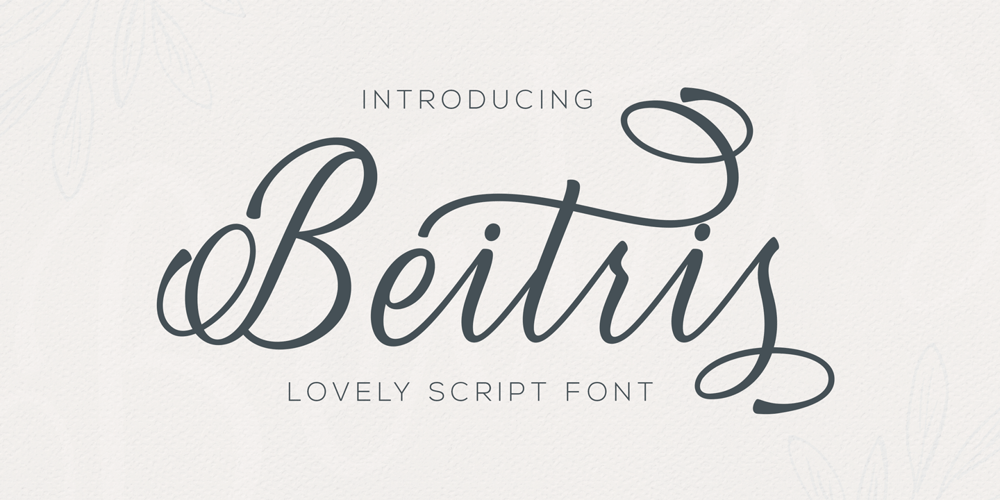
Beitris
Beitris font
Beitris Font Family was designed by Mohd Ghazi Fahrizal and published by Kodhibanks. Beitris contains 1 styles and family package options. Beitris is a beautiful and elegant script font. Perfect for designing branding, blog logo, website logo, print ads, book covers, film covers, apparel, cards, logos, posters, etc. Beitris typeface gives you more alternatives in designing.